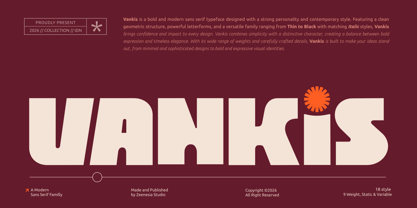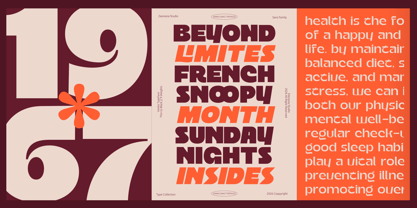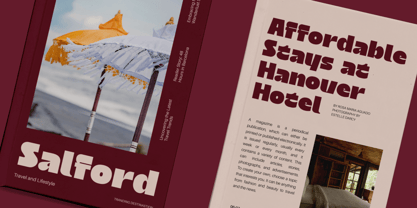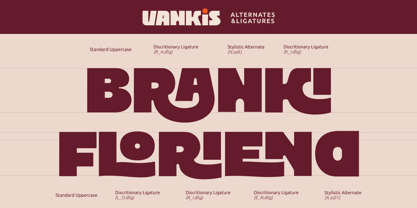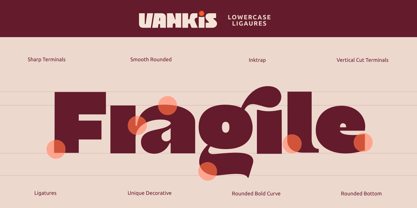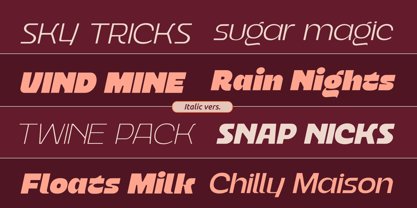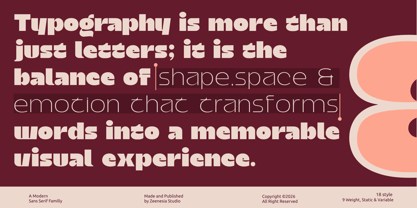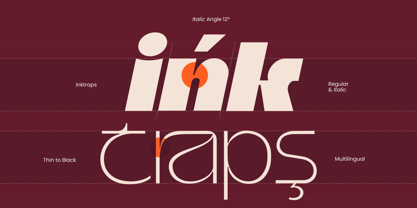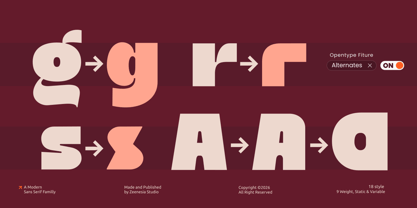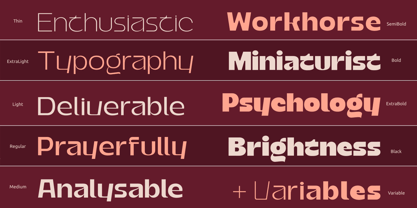
Vankis
by Zeenesia Studio
The Vankis Font Family was designed by Doni Purwoko and published by Zeenesia Studio. Vankis contains 12 styles. More about this family
Vankis is a bold and modern sans serif typeface designed with a strong personality and contemporary style. Featuring a clean geometric structure, powerful letterforms, and a versatile family ranging from Thin to Black with matching Italic styles, Vankis brings confidence and impact to every design. Vankis combines simplicity with a distinctive character, creating a balance between bold expression and timeless elegance. With its wide range of weights and carefully crafted details, Vankis is built to make your ideas stand out, from minimal and sophisticated designs to bold and expressive visual identities.